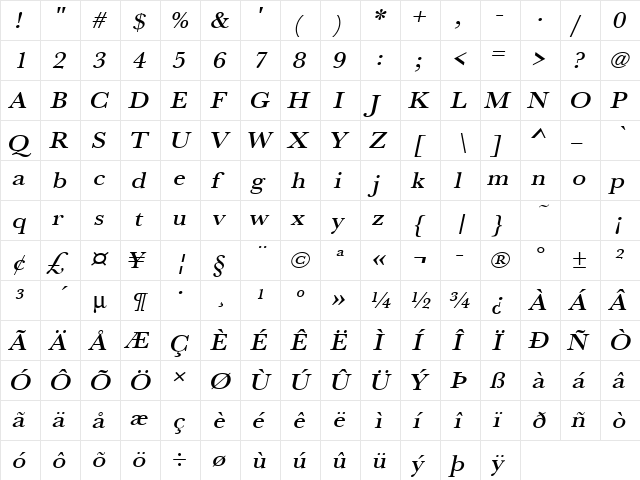
URWBaskerTMedExtWid Oblique
Design Context for URWBaskerTMedExtWid Typeface
URWBaskerTMedExtWid is a composed and adaptable typeface that performs quietly and consistently across a wide range of design contexts. Its italic angle brings a sense of urgency and motion to the letterforms.
Pro Tip: Use URWBaskerTMedExtWid for emphasis, pull quotes, and subheadings where its slanted energy can add rhythm to the layout.